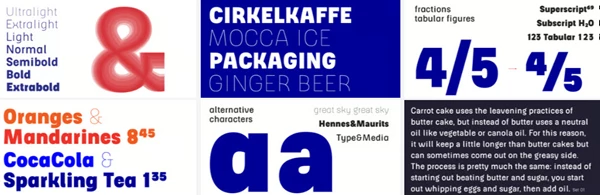
My Fonts - Slik Font Family:
The Slik Font Family is an elegant typeface designed for packaging. It was used in a packaging design submission for a Swedish licorice brand, Läkerol, but the submission was unsuccessful. However, due to its simplicity and uniqueness, this font family is designed for packaging. Slik comes in seven different weights, from Ultralight to Extrabold, so you can use this font family with varying weights. Not only does Slik include seven weights, but it also offers alternate glyphs, making this font family perfect for text, numbers, and prices. All these unique features make Slik an exceptional font family to use for your projects.